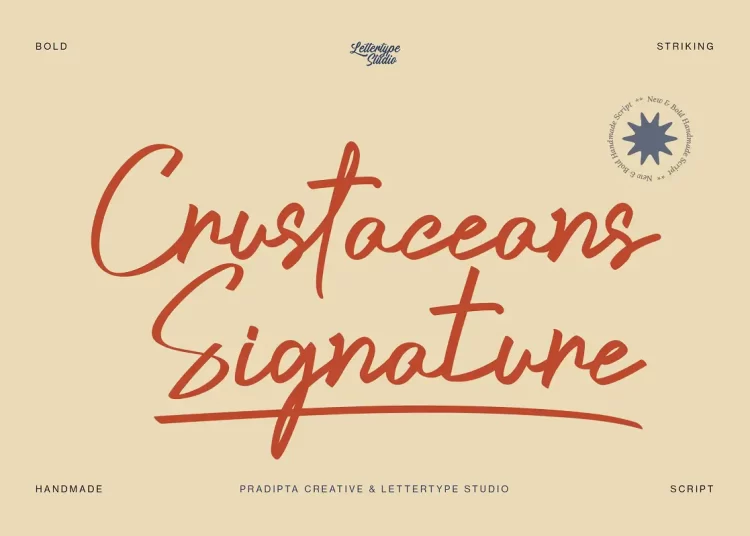
Crustaceans Signature Font
Introducing the captivating and meticulously crafted script font, Crustaceans Signature Font. This handmade typeface is designed to make a bold and striking statement, making it an ideal choice for a variety of creative applications.
Crustaceans Signature Font is the perfect companion for enhancing your photography, watermarking, social media posts, advertisements, logos, branding, invitations, product designs, labels, stationery, wedding materials, product packaging, subheaders, special events, and more. Its distinctive bold script adds a touch of elegance and personality to any project.